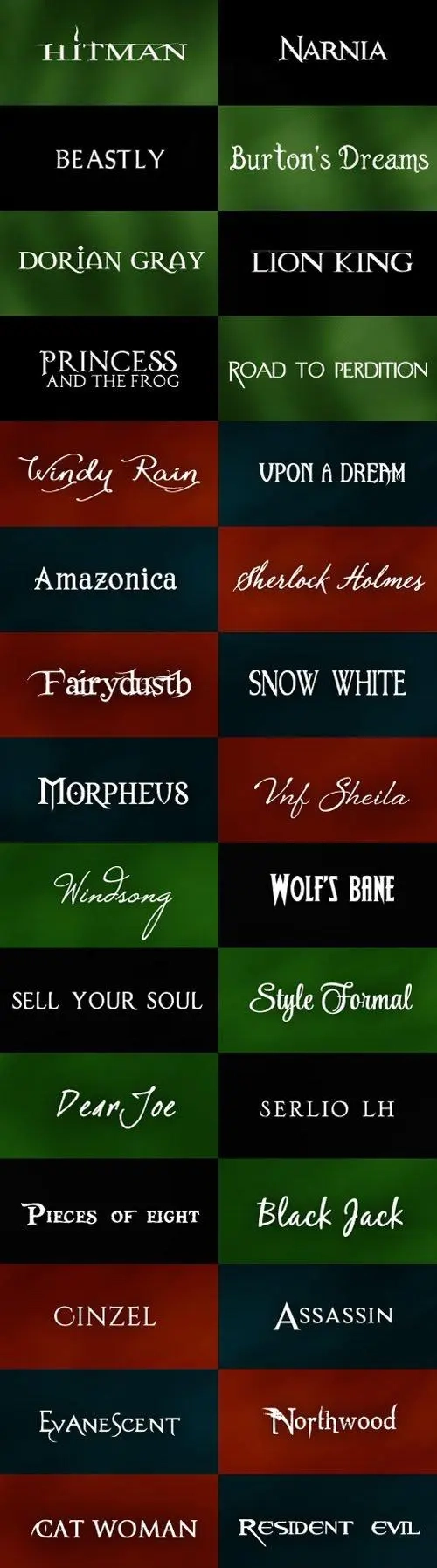
32 Fonts Collection
Introducing the 32 Fonts Collection, a diverse assortment of typefaces designed to elevate your creative projects. This collection features a variety of styles, including serif, sans-serif, script, and display fonts, ensuring you have the perfect typeface for any occasion.
• 32 unique fonts, each with its own character and style
• Multiple weights and styles available for versatility
• High-quality design for professional use
• Includes uppercase and lowercase letters, numbers, and special characters
Utilize these fonts for branding, logos, web design, print materials, and user interfaces. The variety in styles allows for creative freedom and expression in your designs.